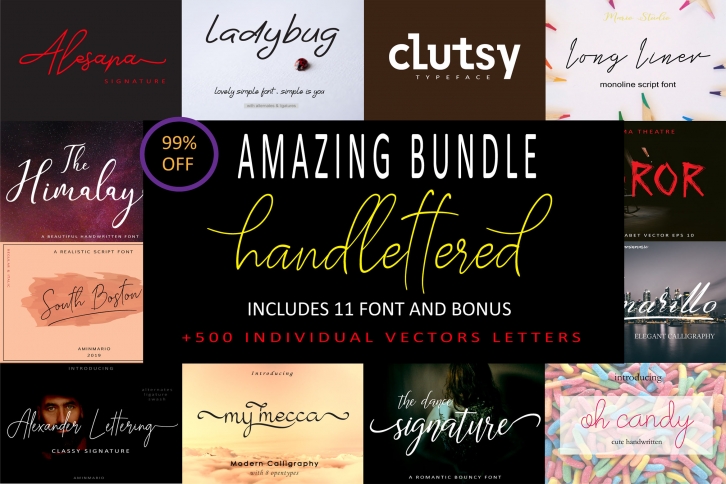
AMAZING BUNDLE SALE is a great font that was designed by aminmario. Imagine the amount of combinations you can create using this font! The archive is 17.43 MB and it was released on April 22, 2019. AMAZING BUNDLE SALE looks beautiful on wedding invitations, greeting cards, logos, posters, labels, t-shirt designs, logos, business cards and is perfect for use in ink or watercolor works, fashion, magazines, packaging and food menus, children's books and more!